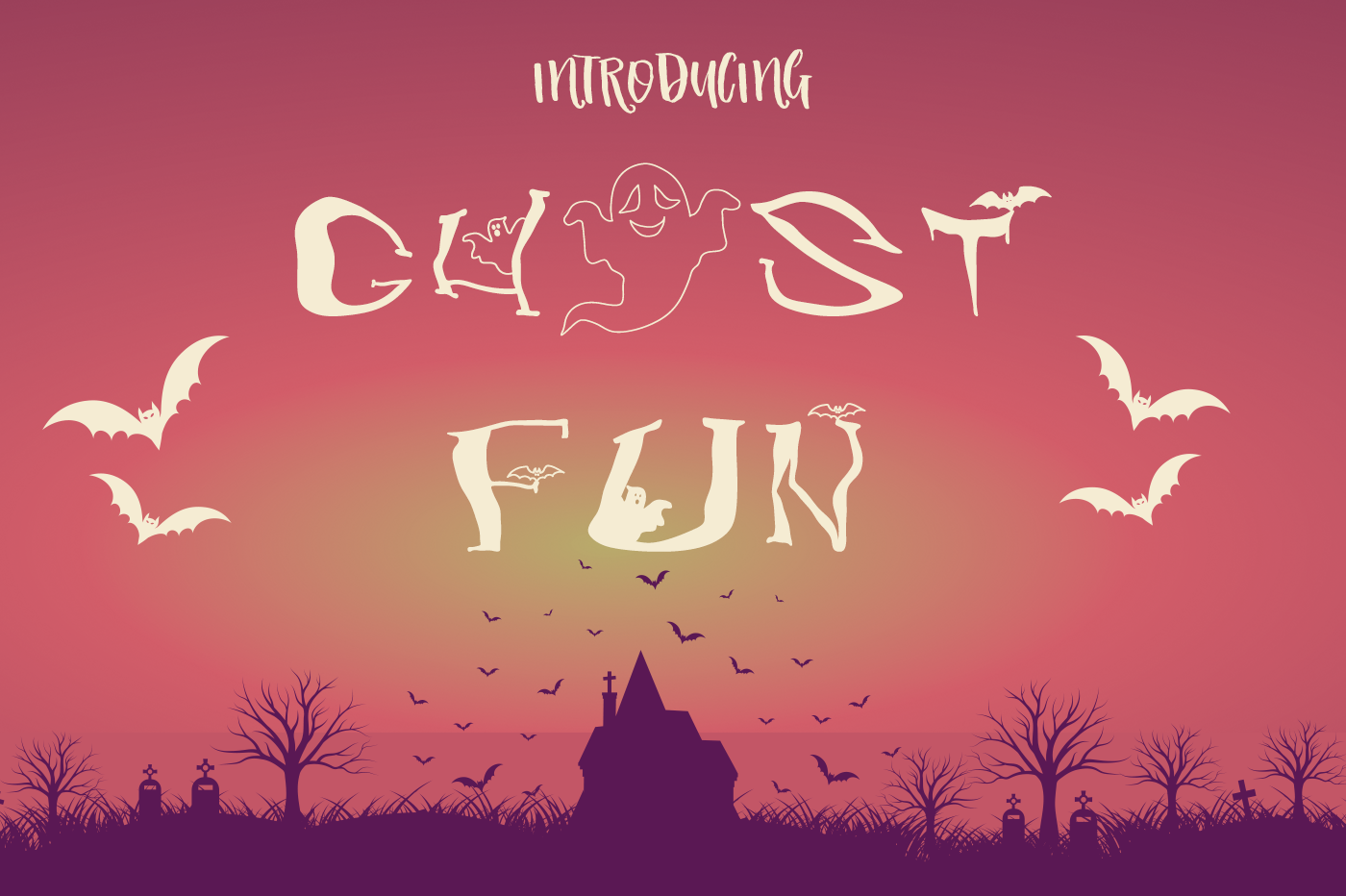
Ghost Fun Font Collection
Let me introduce you the font Ghost Fun Font Collection . It flows like a signature while you type it. It really shows the art of hand-work.There are 5 alternatives for this font also You will access Ghost White Bonus Font which can be used within the former one. Have a good luck for enthusiastic and amazing designs.